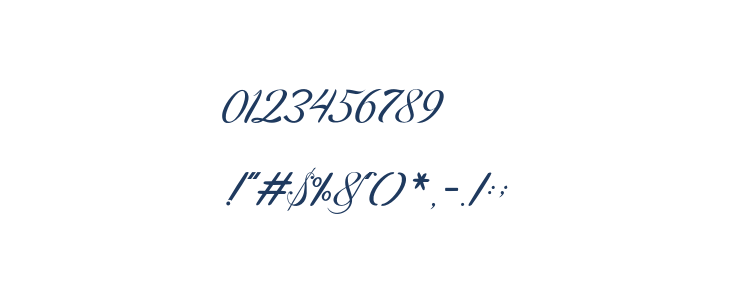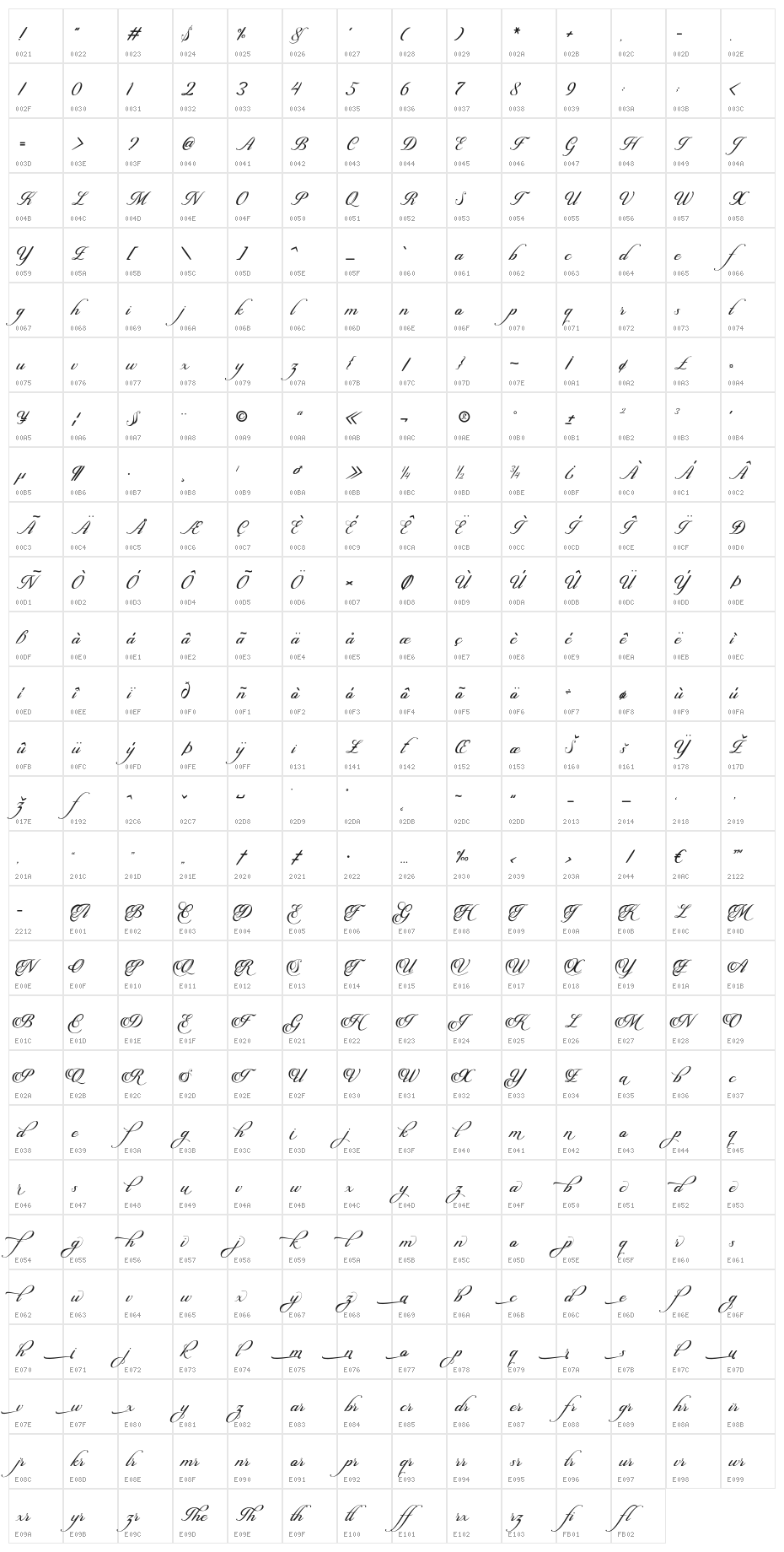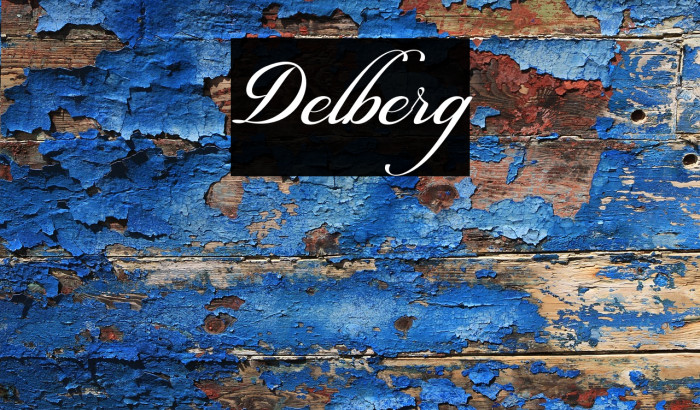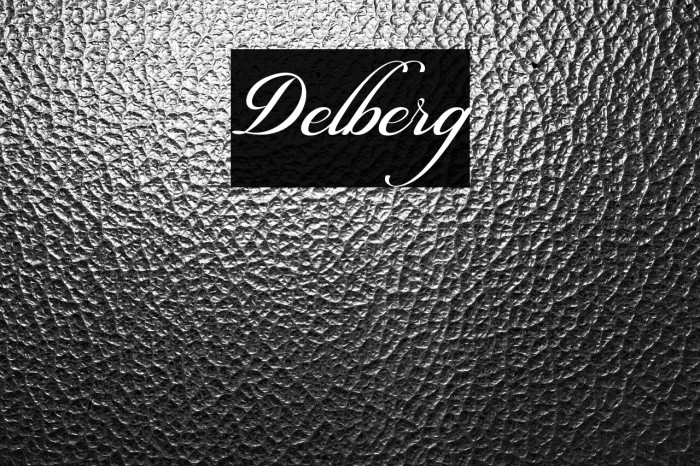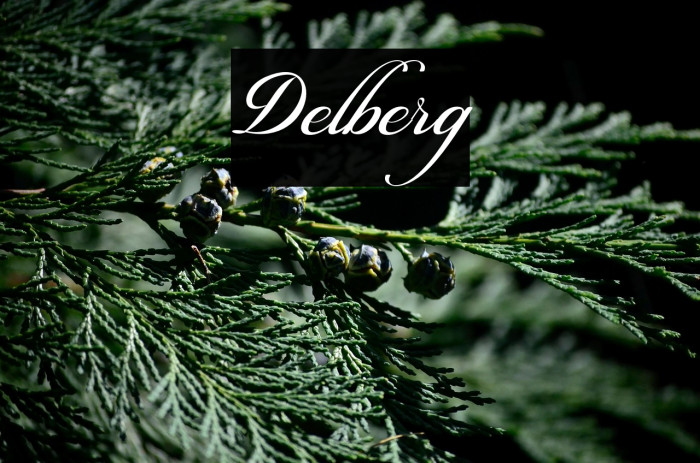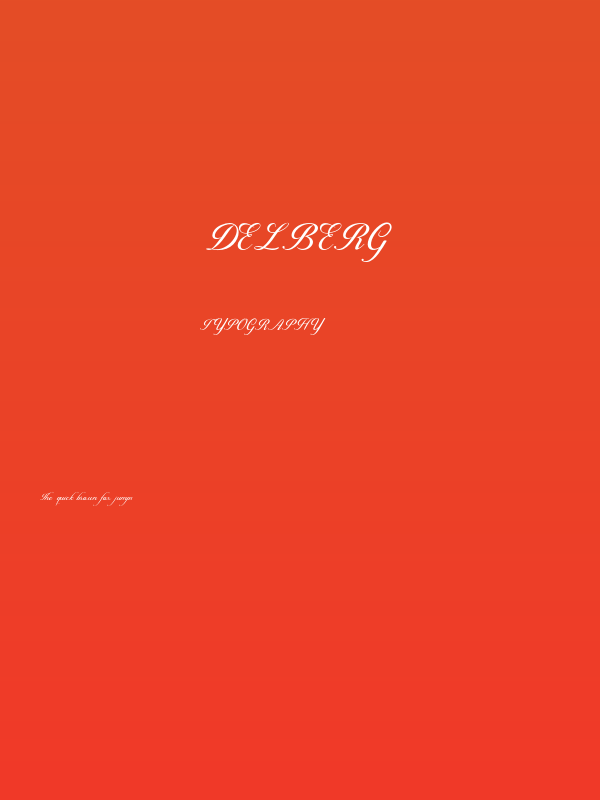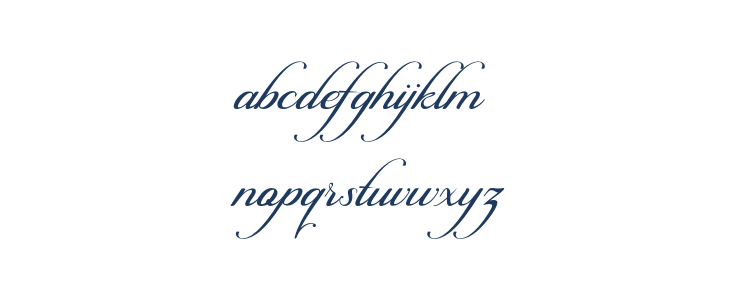
Delberg Font
Delberg Description
This elegant script font features flowing, cursive strokes that give it a sophisticated and classic appearance. The uppercase letters are particularly ornate, with sweeping lines and flourishes that add a touch of grandeur. The lowercase letters maintain a consistent style, with smooth curves and a slight slant that enhances readability. Numbers and special characters are designed to match the overall aesthetic, ensuring a cohesive look across all text. This font is ideal for projects that require a touch of elegance and formality, such as wedding invitations, formal event programs, or luxury brand logos.
| Use Case | Logos, Invitations, Formal documents |
| Proposed Projects | Wedding invitations, formal event programs, luxury brand logos. |